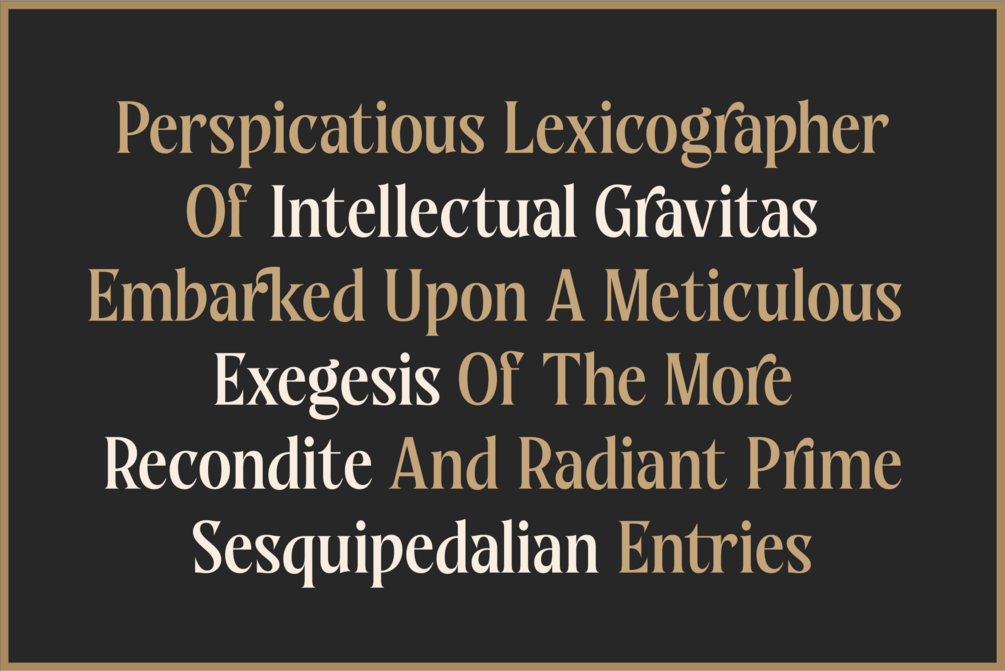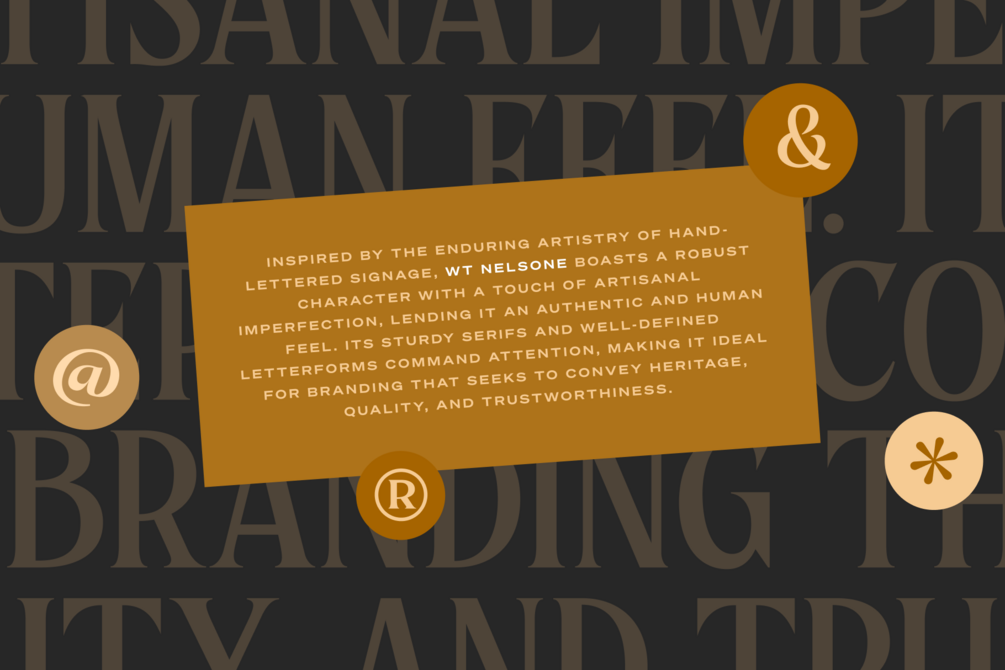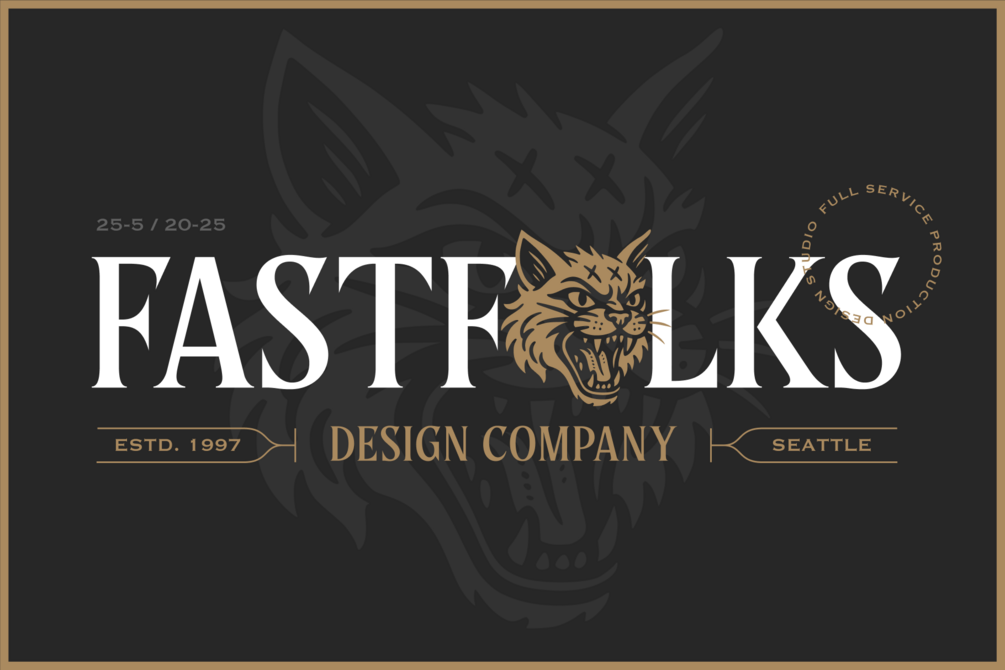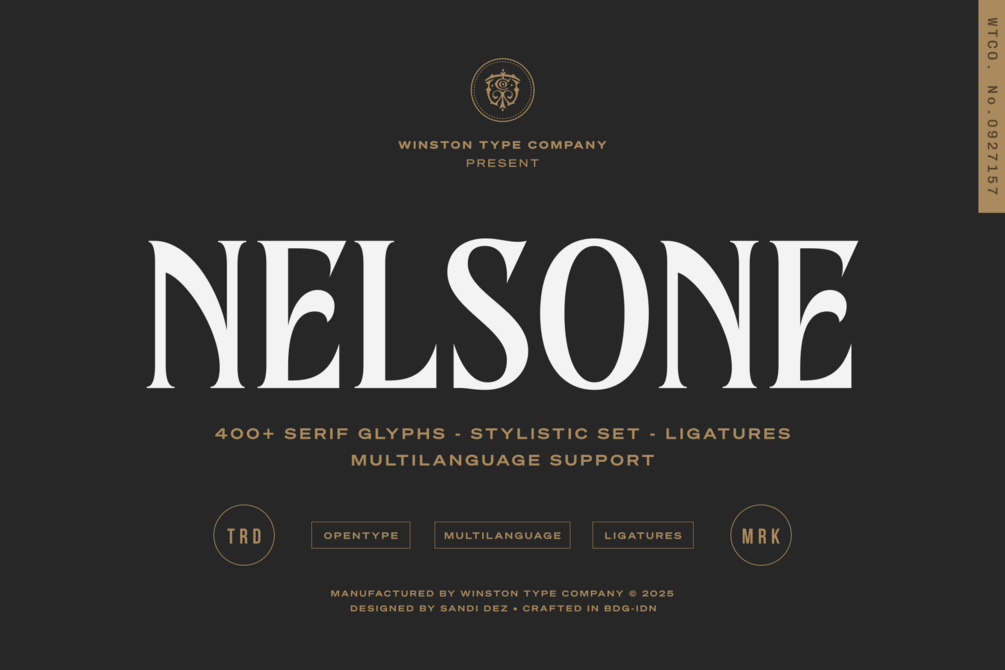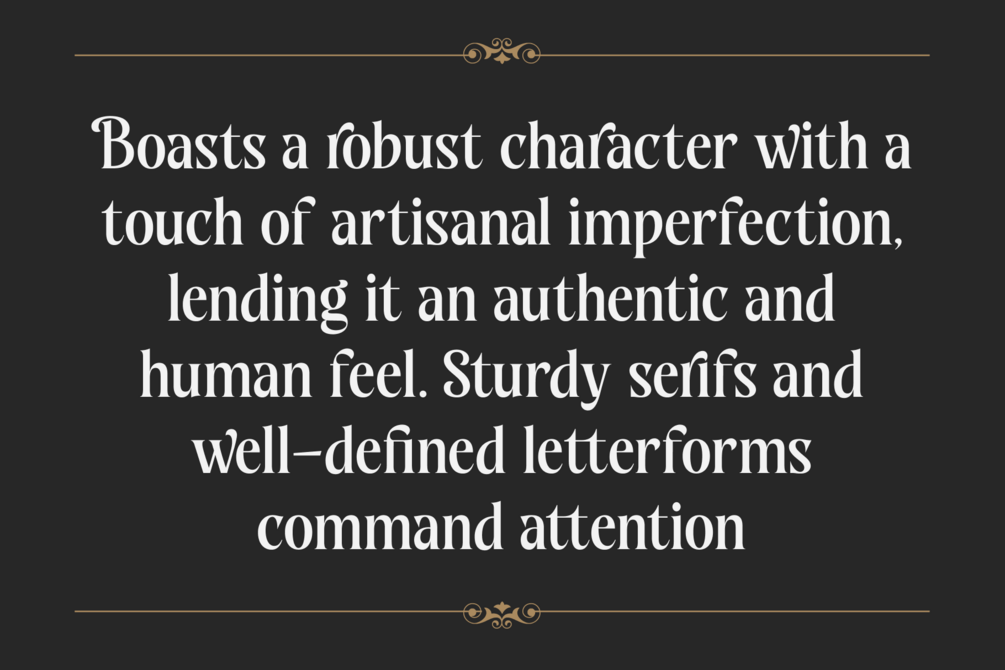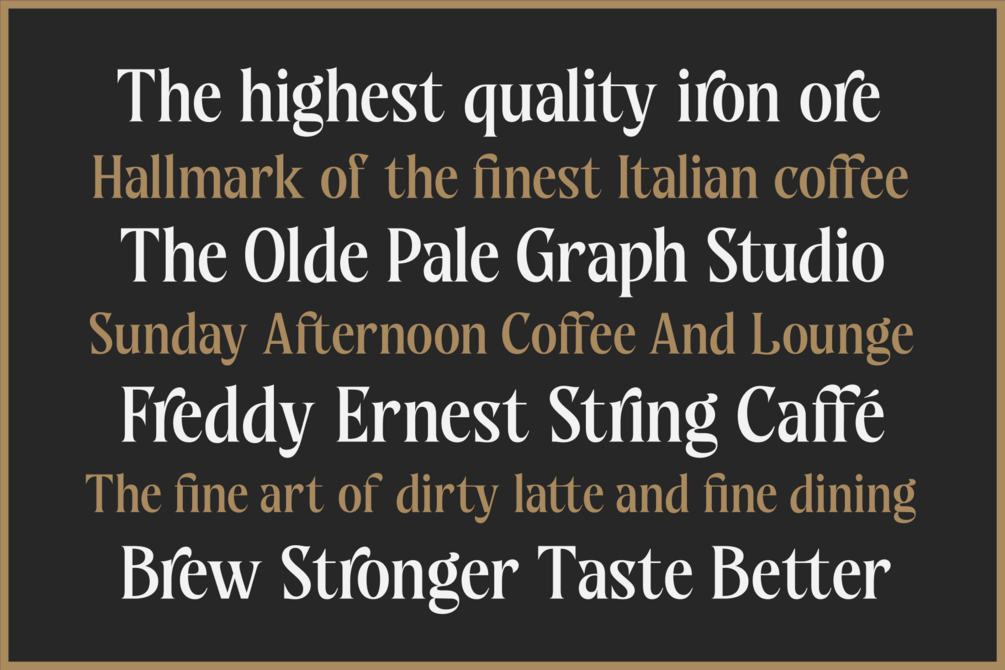
WT Nelsone
Inspired by the enduring artistry of hand-lettered signage, WT Nelsone boasts a robust character with a touch of artisanal imperfection, lending it an authentic and human feel. Its sturdy serifs and well-defined letterforms command attention, making it ideal for branding that seeks to convey heritage, quality, and trustworthiness.
WT Nelsone is designed with the demands of modern business in mind. Its clean lines and balanced proportions ensure excellent legibility across both print and digital platforms, making it a versatile choice for everything from logos and packaging to websites and editorial design.
Elevating its functionality and aesthetic appeal, WT Nelsone comes equipped with a comprehensive suite of OpenType features:
Stylistic Set Alternates: Explore a range of alternate letterforms of uppercase, allowing you to fine-tune the font's personality and inject unique character into your designs. Whether you desire a more ornate flourish or a subtly simplified shape, these alternates provide creative flexibility.
Ligatures: Seamlessly blend letter combinations with thoughtfully designed ligatures, enhancing both the visual flow and the overall sophistication of your typography. These ligatures add a touch of bespoke craftsmanship to your text.
Multilanguage Support: Connect with a global audience with extensive character set, supporting a wide array of Latin-based languages.
WT Nelsone is a perfect choice for businesses seeking a distinctive visual identity that balances the enduring appeal of vintage aesthetics with the clarity and versatility required for contemporary success.